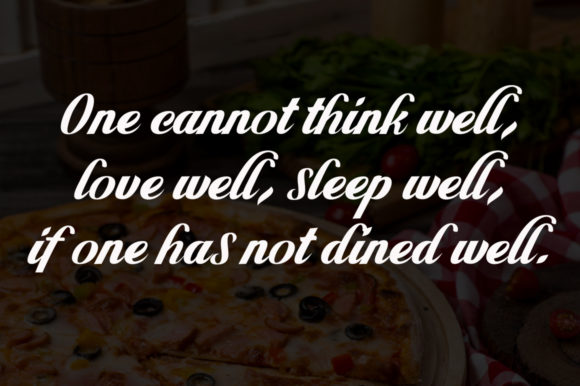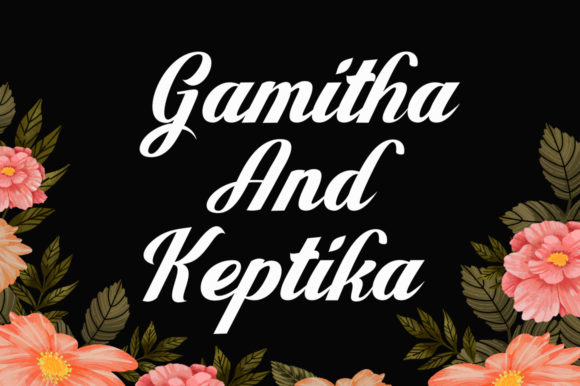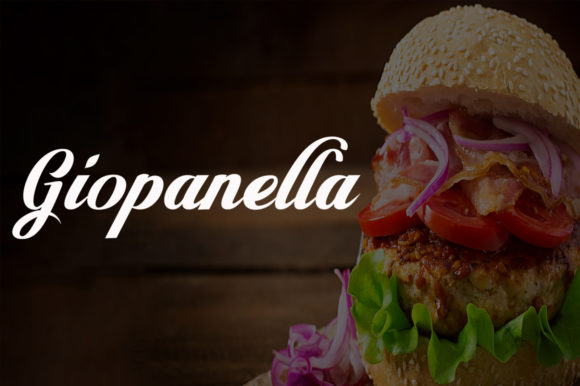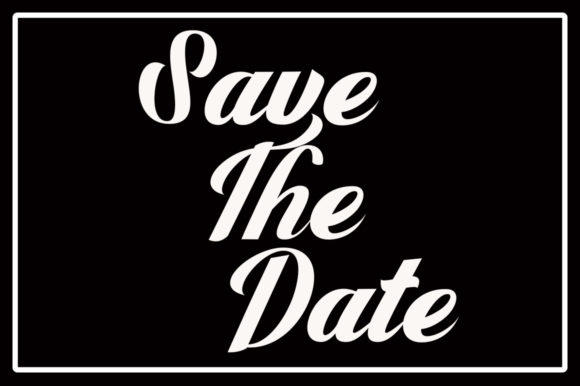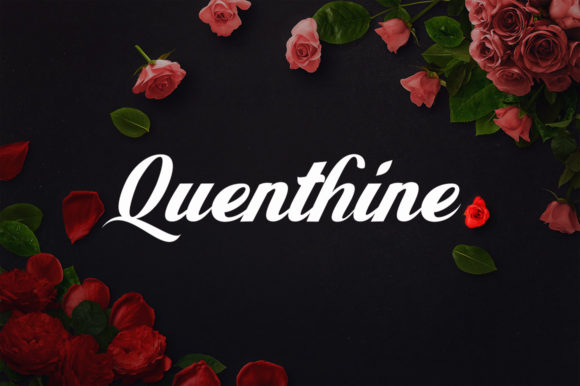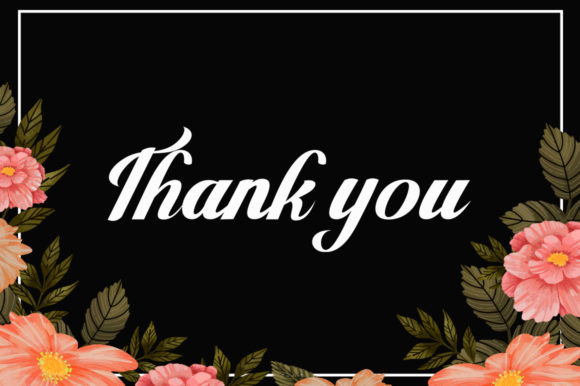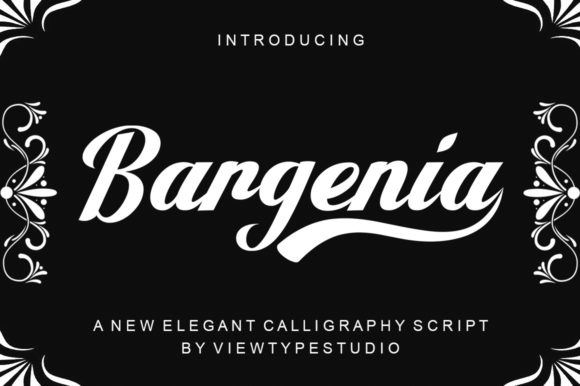
Bargenia Font: Elevate Your Designs with Modern Script Elegance
In the realm of typography, a font can make or break the aesthetic appeal of a design project. For those seeking a modern script font that exudes elegance and sophistication, Bargenia Font stands out as an exceptional choice. Created with a brush pen, Bargenia brings a personal touch to digital and print designs, making it perfect for crafty ideas, professional branding, and everything in between.
The Unique Charm of Bargenia
Bargenia is not just another script font; it’s a modern masterpiece designed to add a stunning baseline to your creations. Its development involved meticulous care to ensure that each letterform and swash contributes to a cohesive, visually appealing script that captures attention. The font’s varying baseline, smooth lines, and gorgeous glyphs work in harmony to produce a flowing, natural look that’s hard to achieve with digital typography.
One of the standout features of Bargenia Font is its PUA (Private Use Area) encoding. This technical detail is a game-changer for designers. PUA encoding means that all glyphs and swashes are easily accessible, allowing for a seamless design process. No longer will you struggle to find and incorporate the perfect swash or alternative letterform. Bargenia’s encoding ensures that you can focus on the creative aspect of your project, making it an efficient tool for producing stunning work.
The versatility of Bargenia Font is one of its most compelling attributes. Whether you’re working on letterheads, titles, stationery, or any other design project, this font adapts beautifully. Its range allows it to be used in various contexts, from formal and professional settings to more casual and creative ones. This adaptability makes Bargenia an invaluable asset in any designer’s toolkit.
Features That Impress
- Varying Baseline: Adds a dynamic, hand-crafted feel to your text.
- Smooth Lines: Ensures that your designs look polished and refined.
- Gorgeous Glyphs: Offers a wide range of characters to enhance your designs.
- Stunning Alternates: Provides flexibility and creativity in your typography.
Applications of Bargenia Font
Bargenia’s features make it suitable for a multitude of applications. Here are a few ideas to get you started:
- Branding: Use Bargenia to create a memorable logo or brand identity that stands out.
- Stationery: Elevate your business cards, letters, and invoices with elegant typography.
- Web Design: Add a touch of sophistication to your website headers, titles, and quotes.
- Packaging: Make your product labels and packaging more appealing with unique, hand-crafted typography.
Bargenia Font is more than just a typography tool; it’s a gateway to creating designs that resonate with elegance and modernity. Its thoughtful design, combined with PUA encoding for easy glyph access, makes it an indispensable resource for designers and crafters alike. Whether you’re aiming to create professional branding materials or unique craft projects, Bargenia offers the versatility and aesthetic appeal you need. Embrace the beauty of Bargenia Font in your next design project and experience the difference it can make.
Discover the potential of Bargenia Font today and let your designs speak with the elegance and sophistication they deserve.